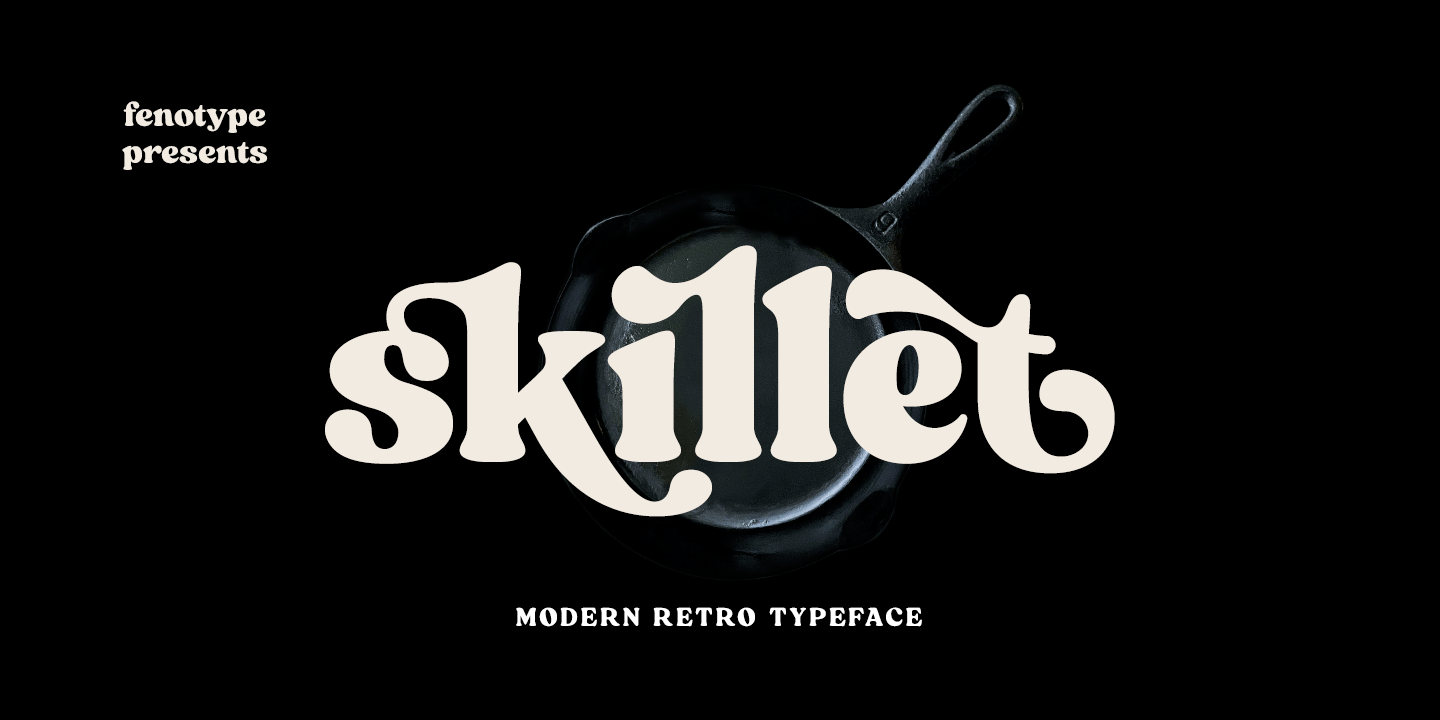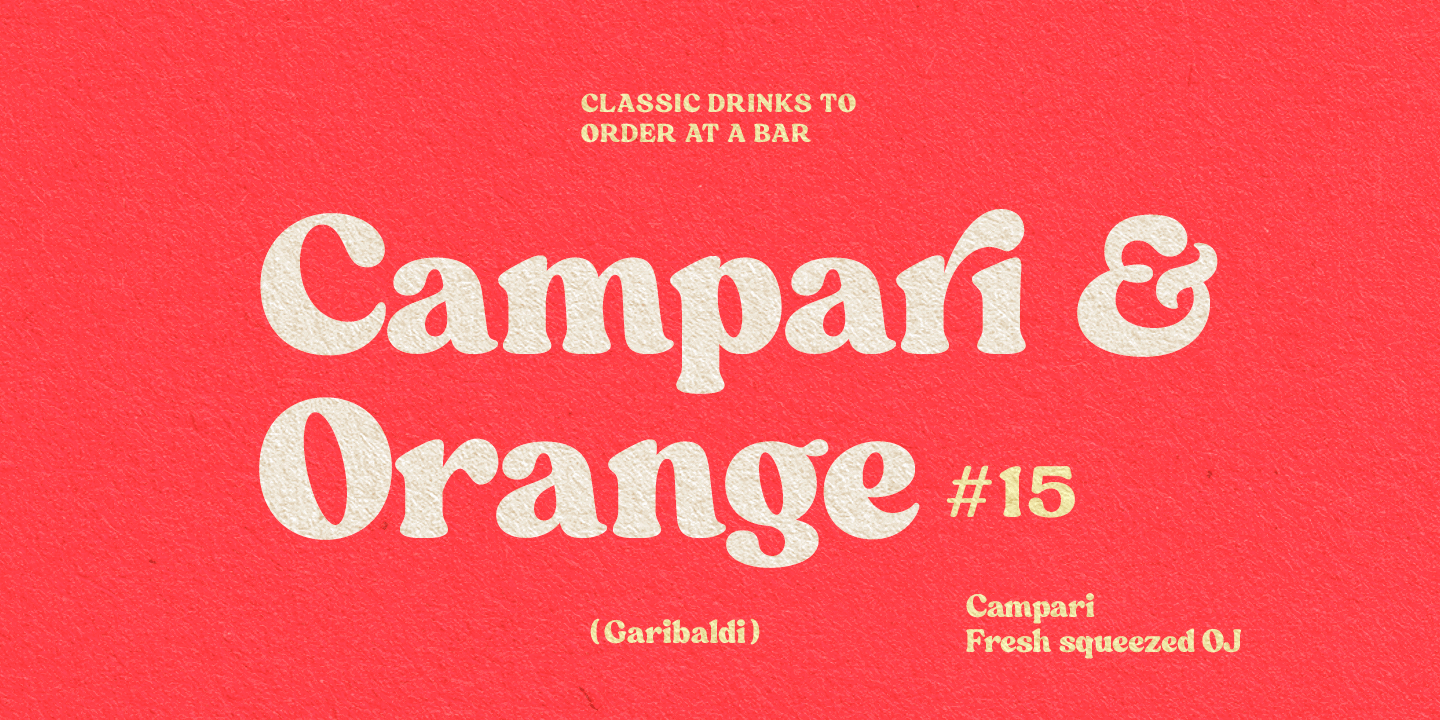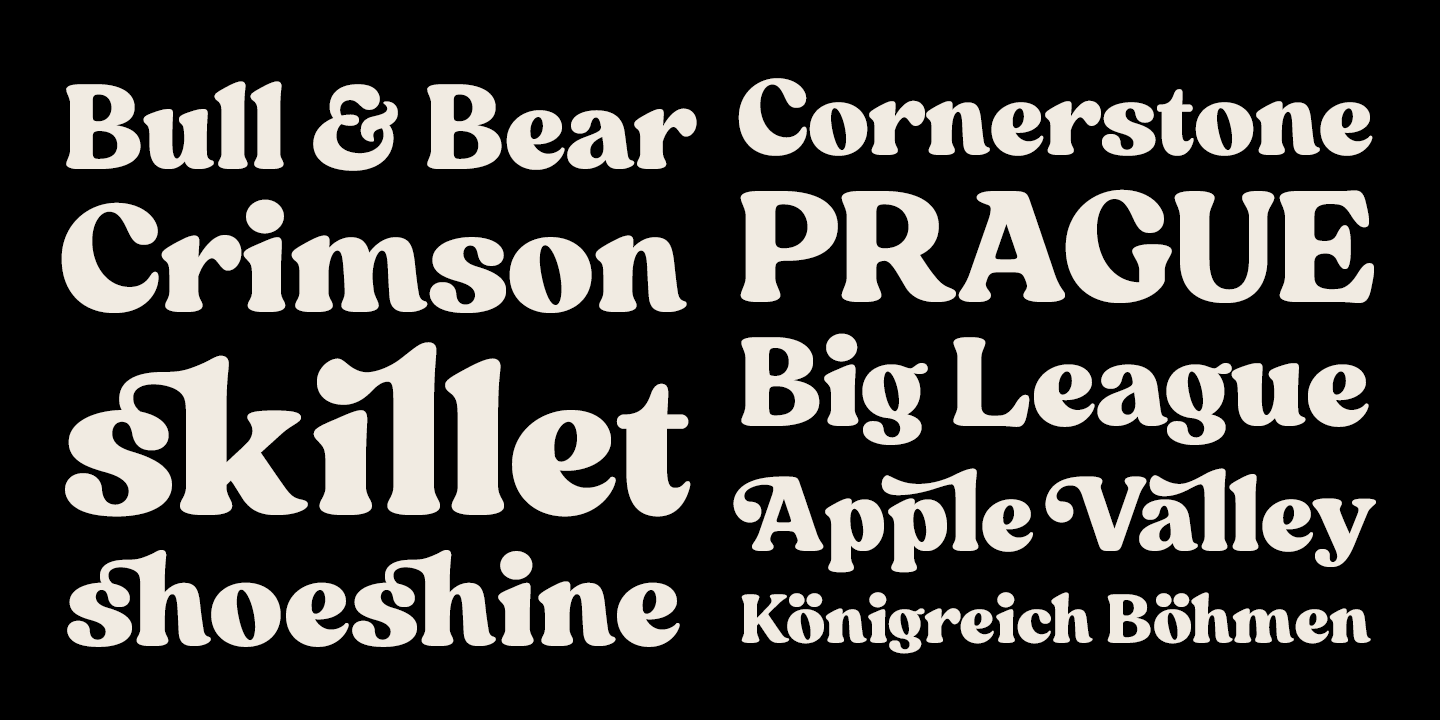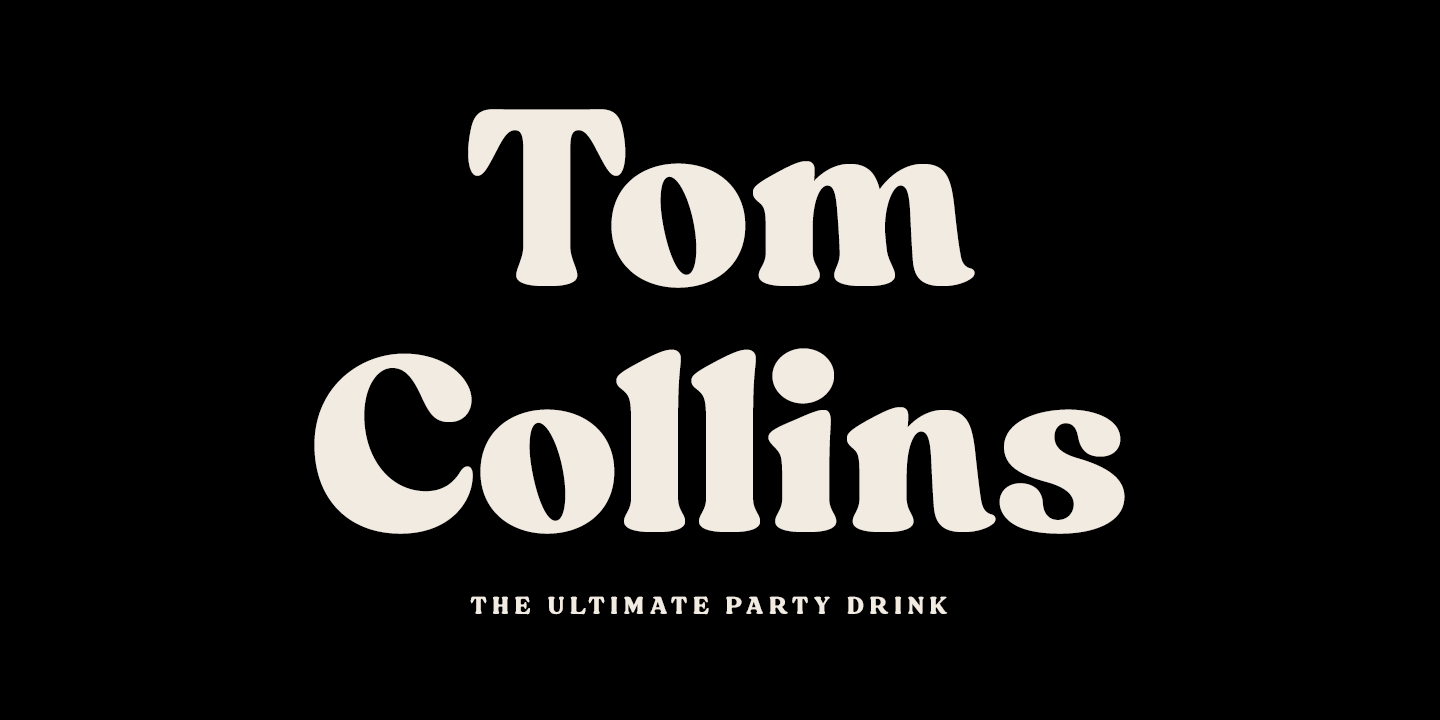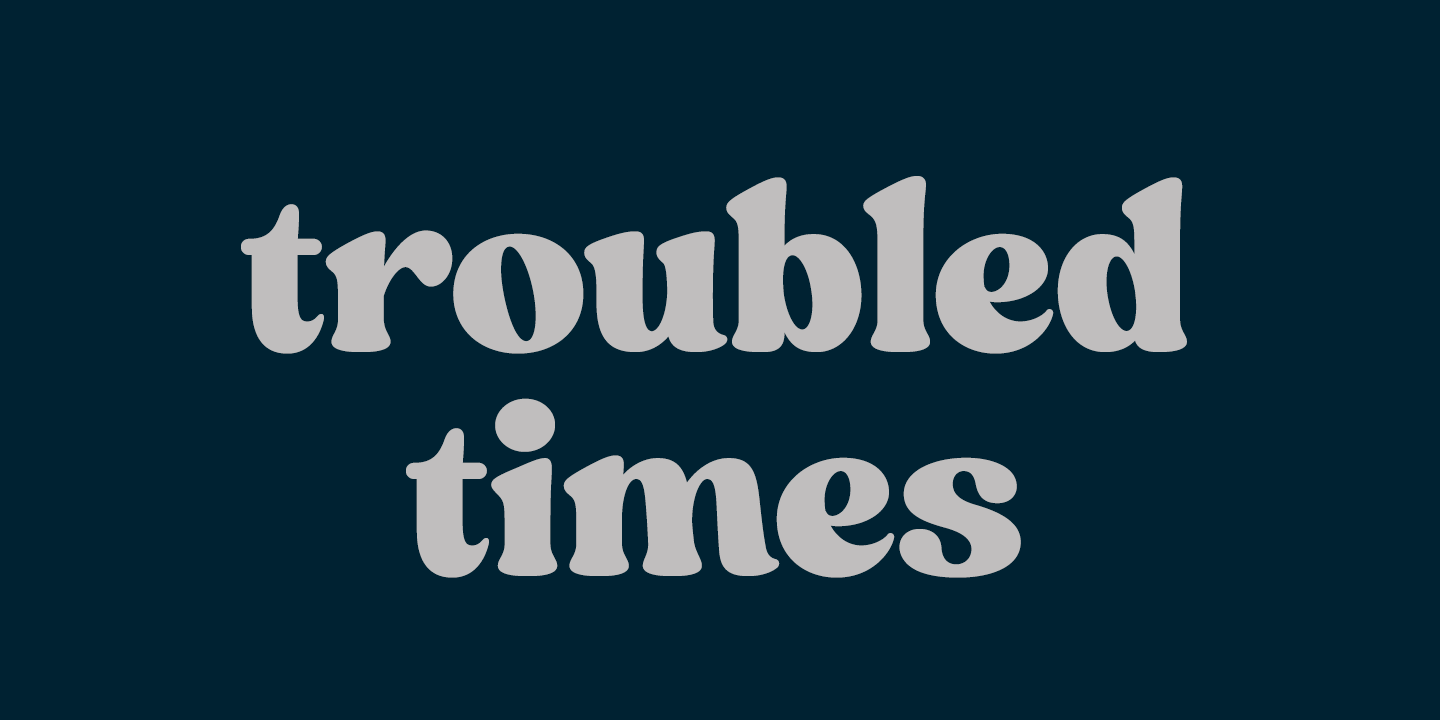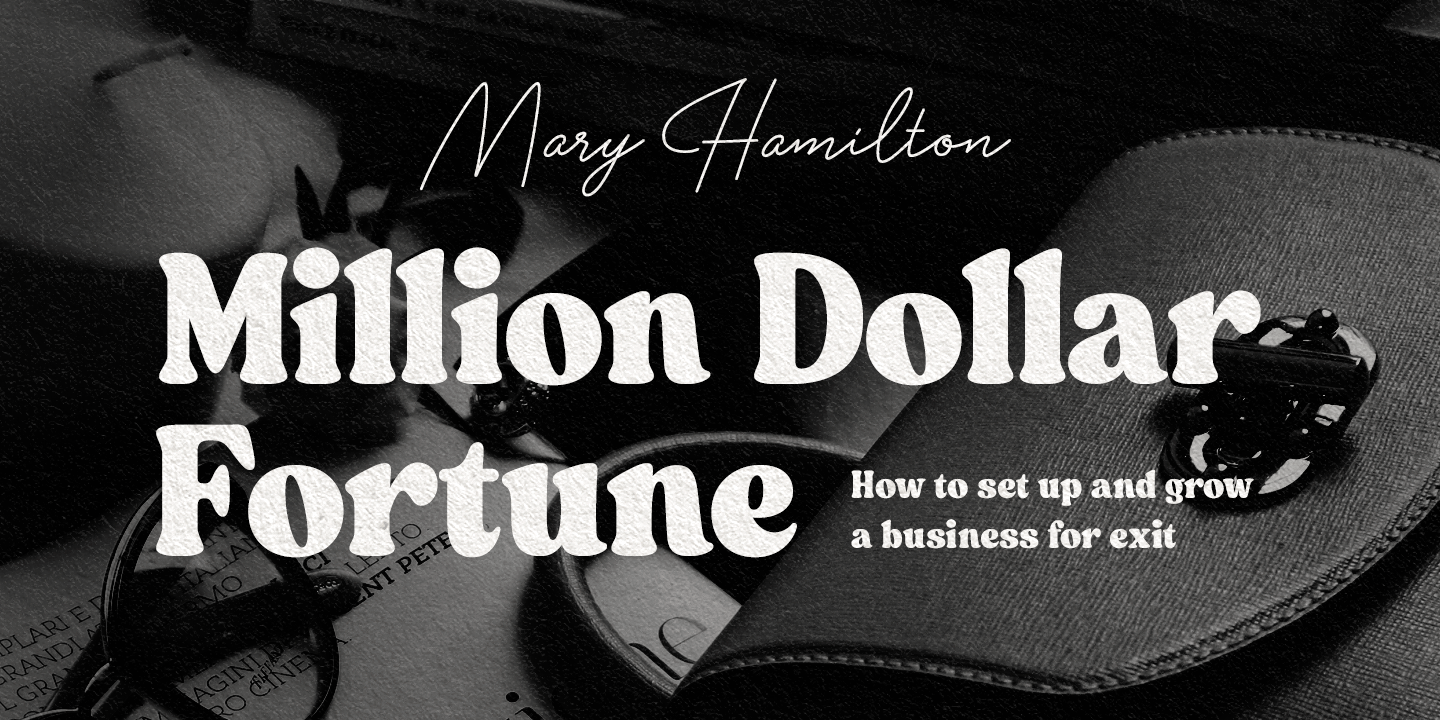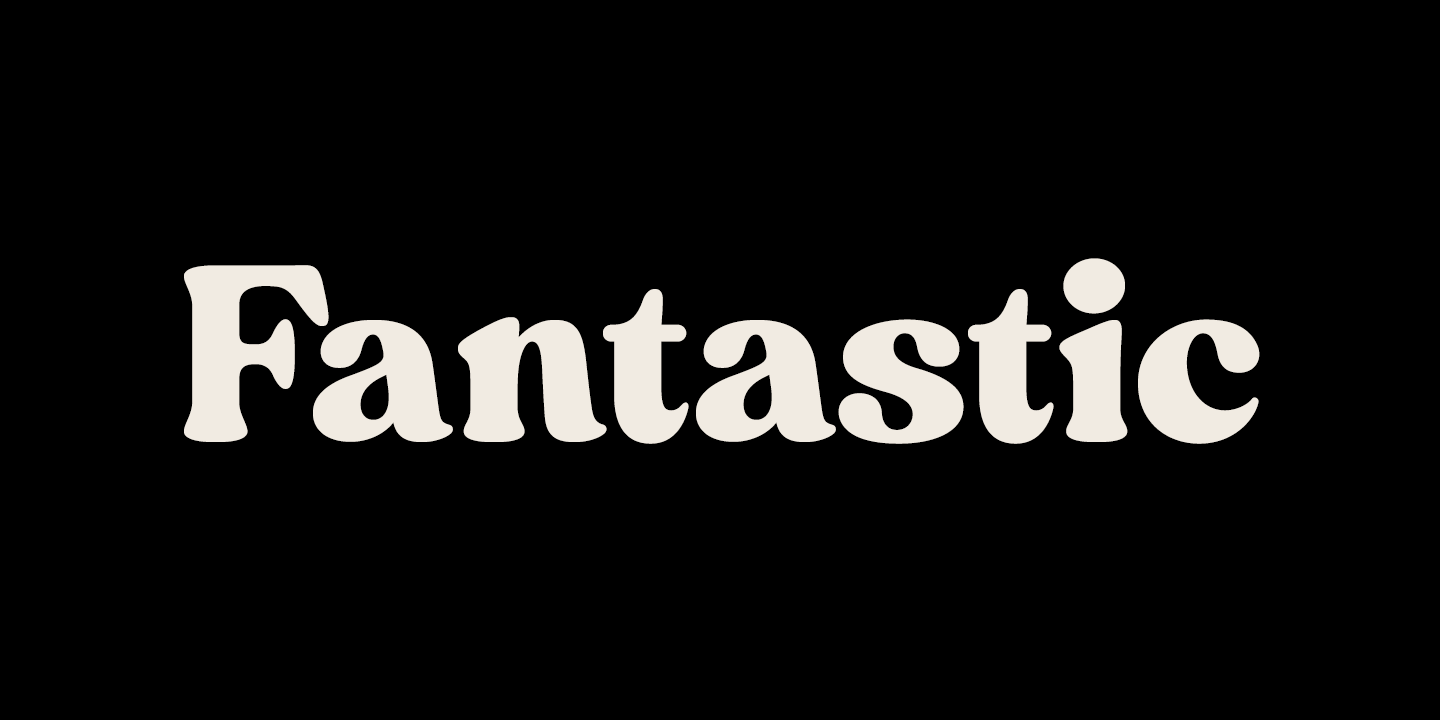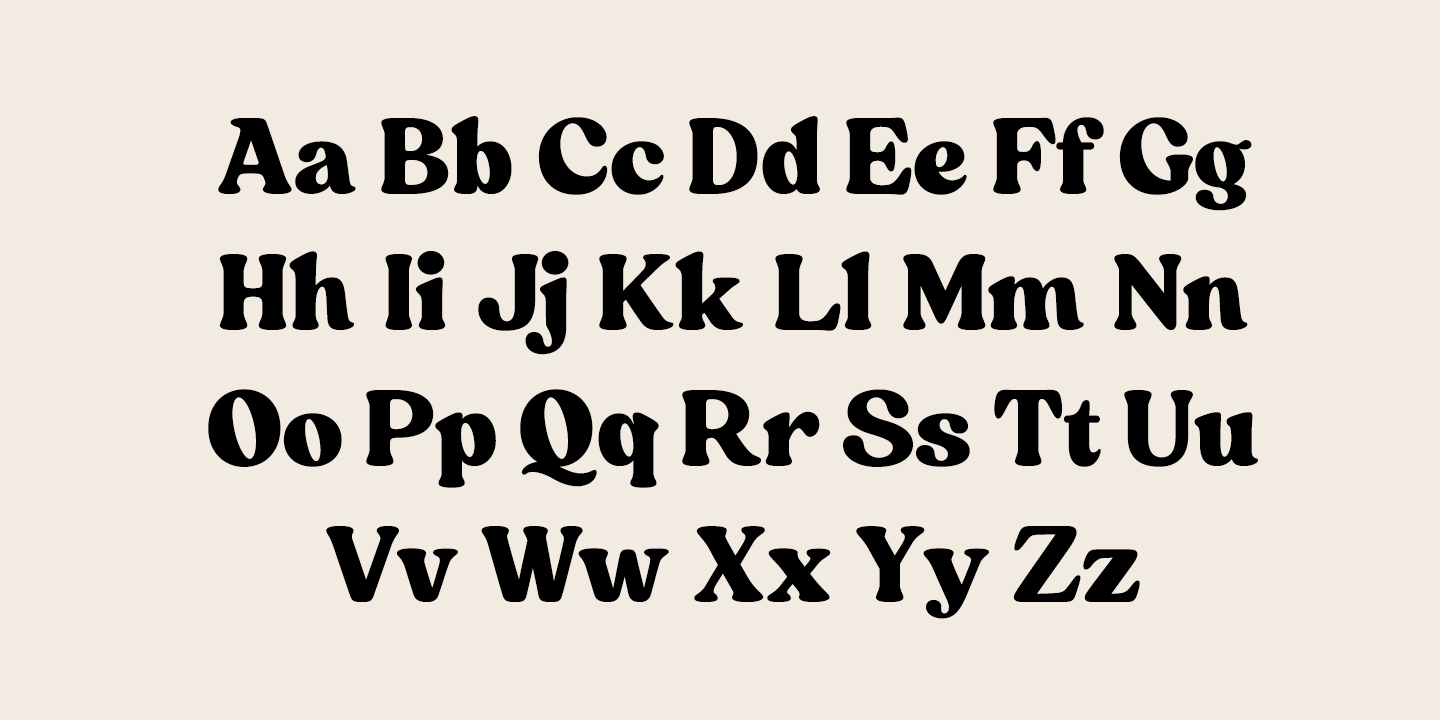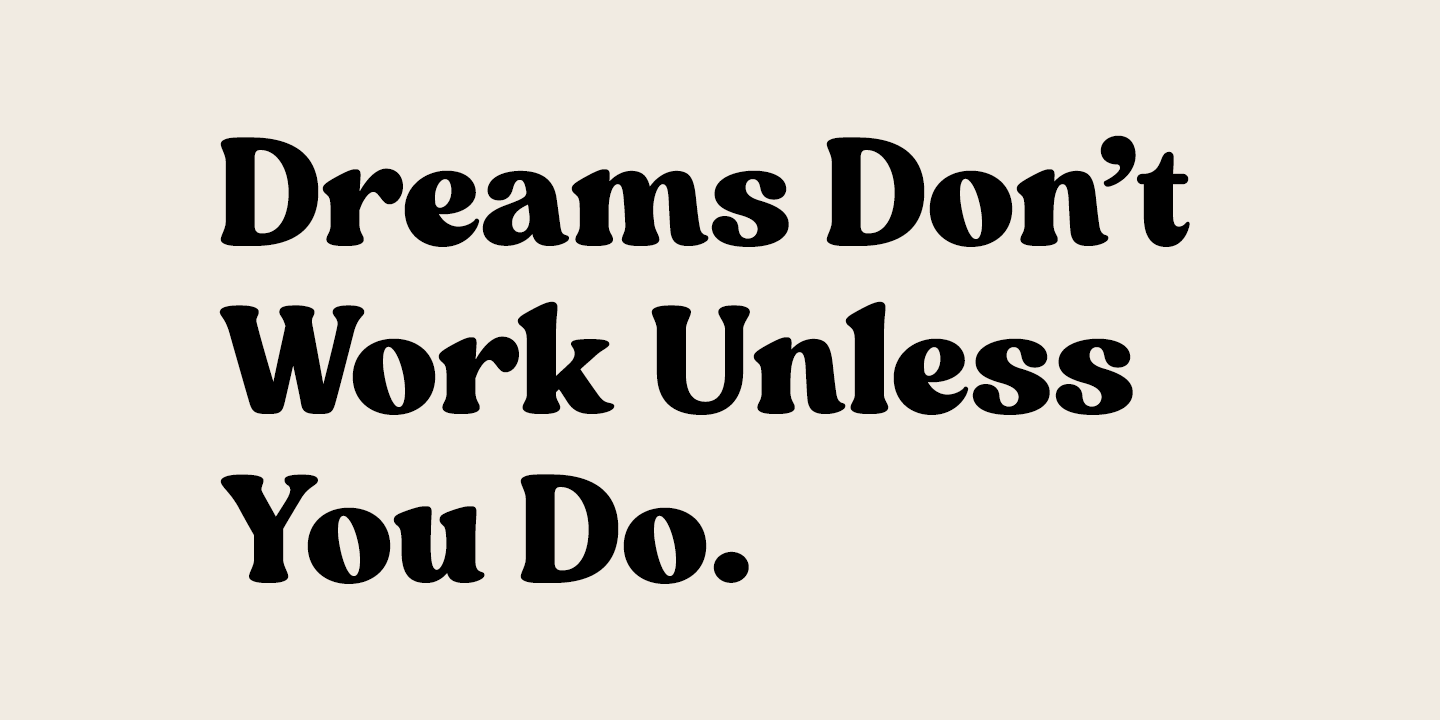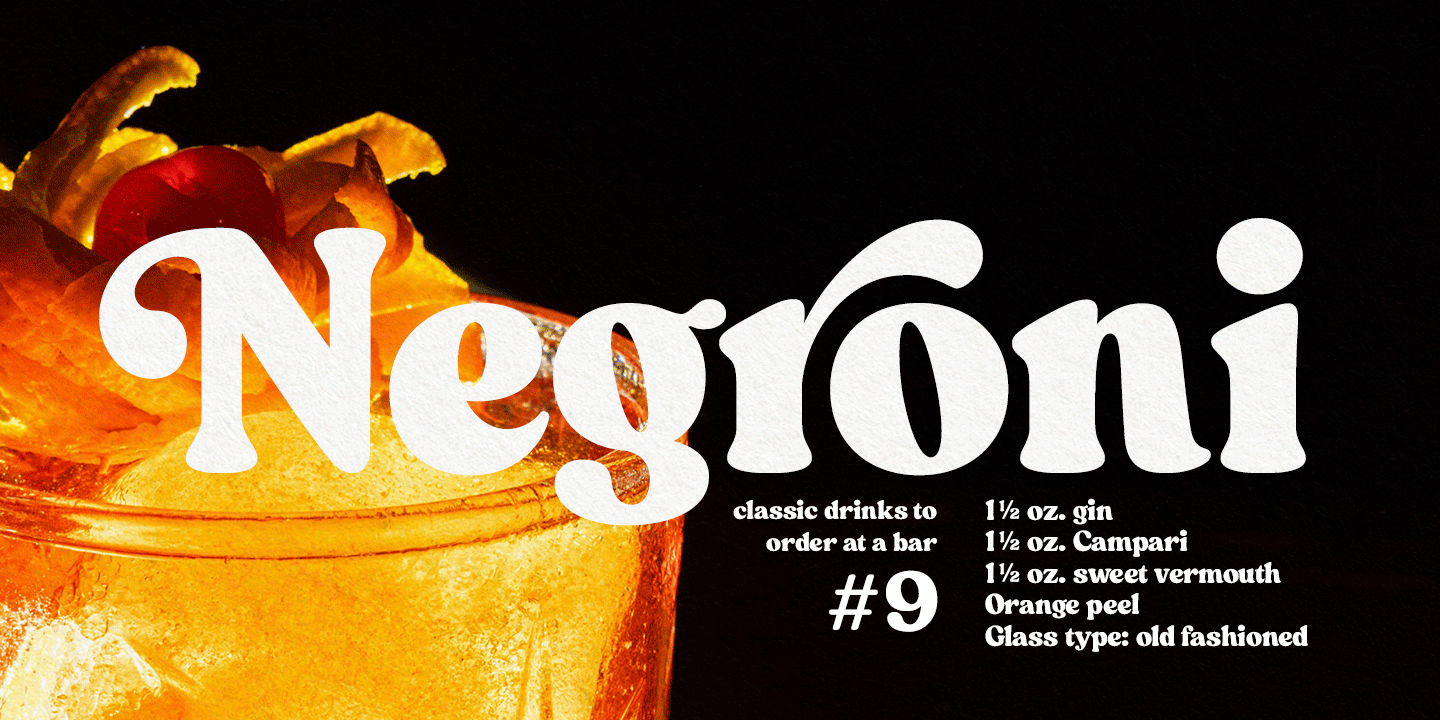
Skillet
Font Family by Fenotype
Skillet is a bold vintage style serif font full of hedonism and joie de vivre. Skillet has strong character and extremely smooth features and self-confidence that springs from within. Skillet comes in two weights: Regular and Condensed. Even though the difference is small, Regular takes over the space while Condensed gives a more intimate impression.
Skillet comes with a wide range of OpenType -features. Keep Standard Ligatures on in normal use. Try Discretionary Ligatures, Swash, Stylistic or Titling Alternates for custom headlines or logos.